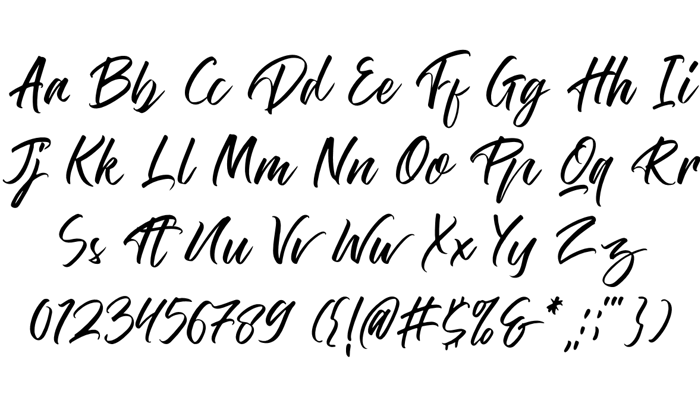
Hamburg Font
Introducing, The Hamburg Script inspired by traditional Script Calligraphy with brushpen, this font is totaly handmade with brush pen scratch. it would be great for any type of design. i will hope this make you inspired with my font.
The Hamburg Script would perfect for photography, watermark, social media posts, advertisements, logos & branding, invitation, product designs, label, stationery, wedding designs, product packaging, special events or anything that need handwriting taste